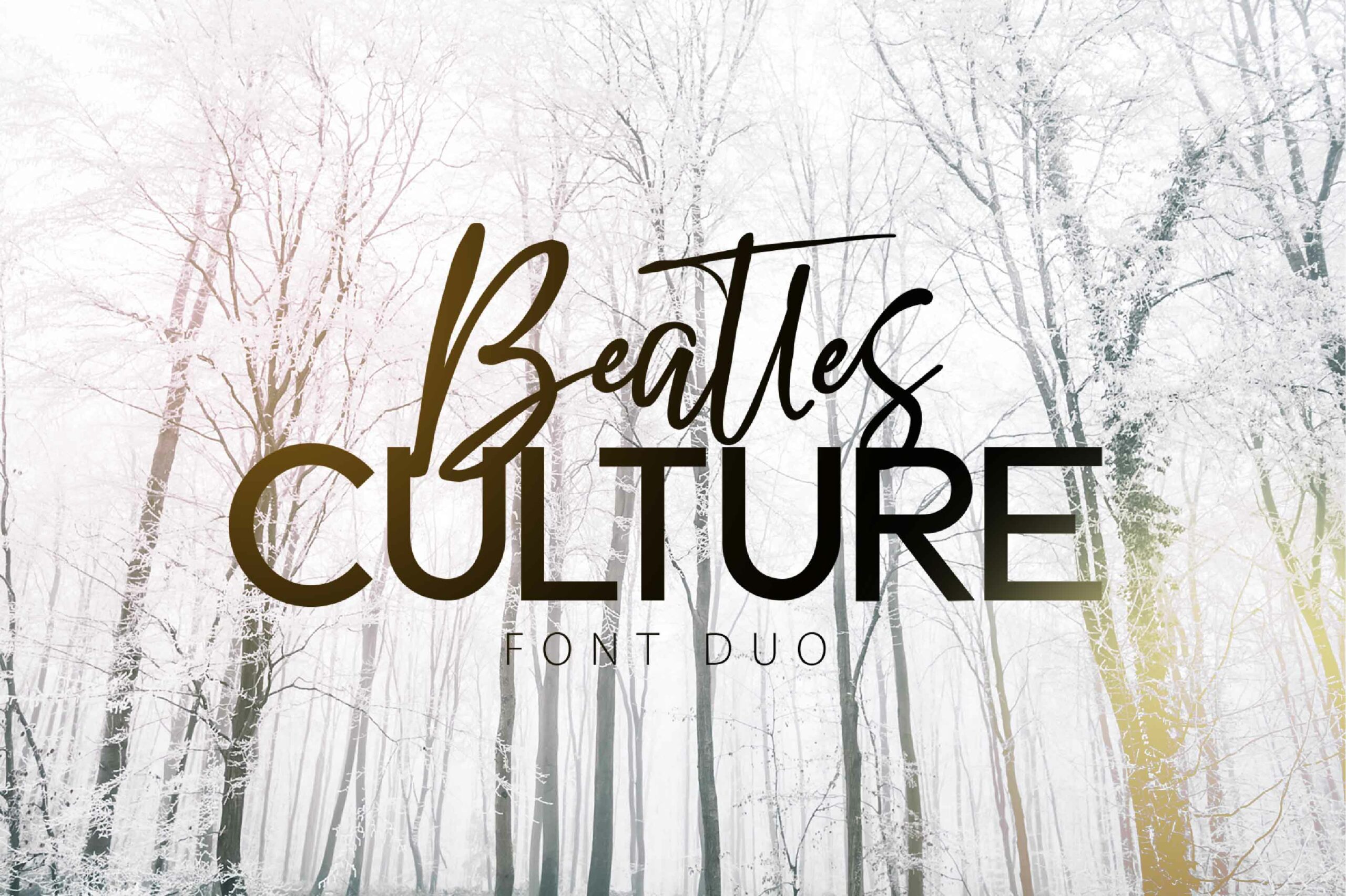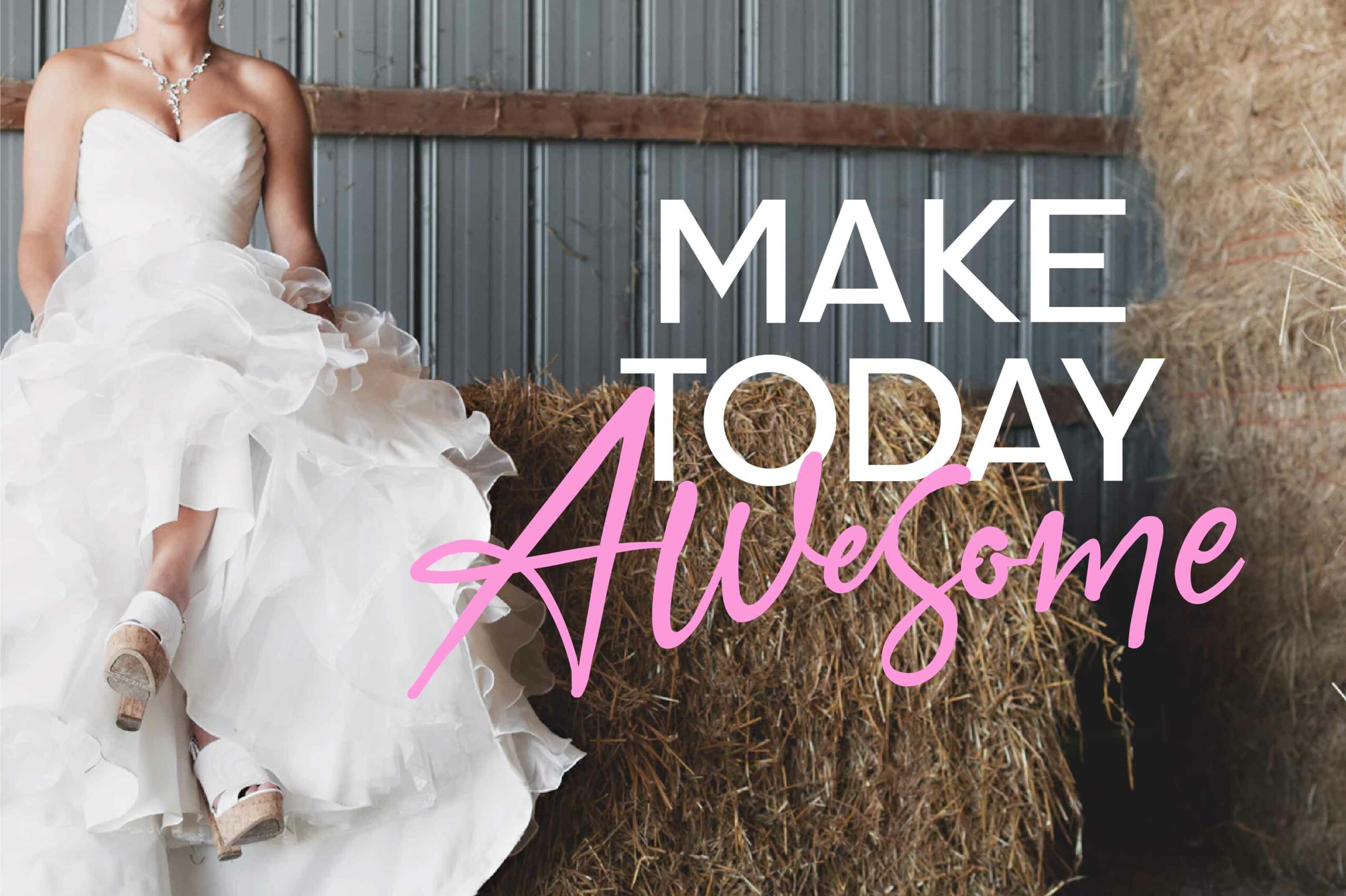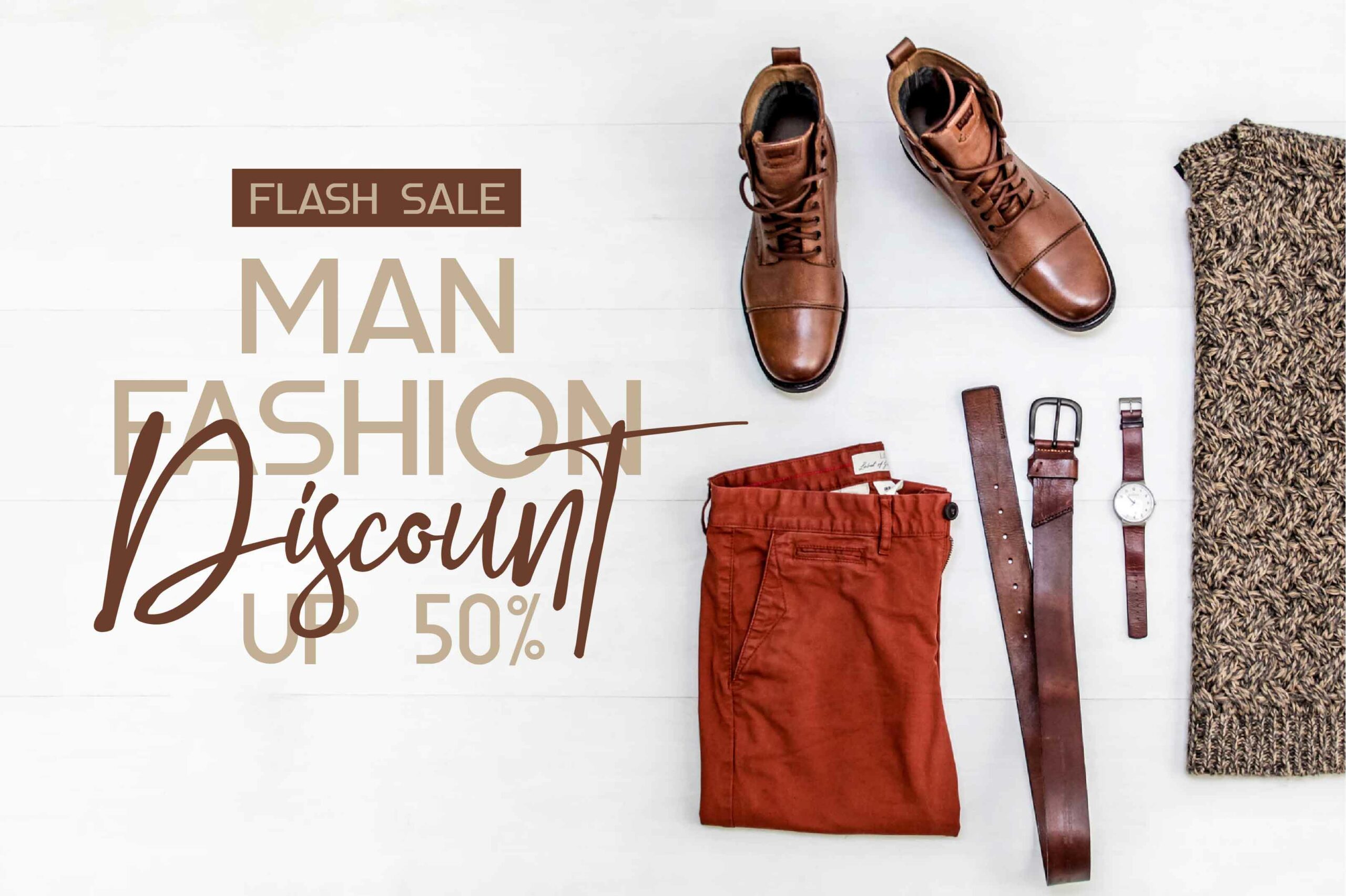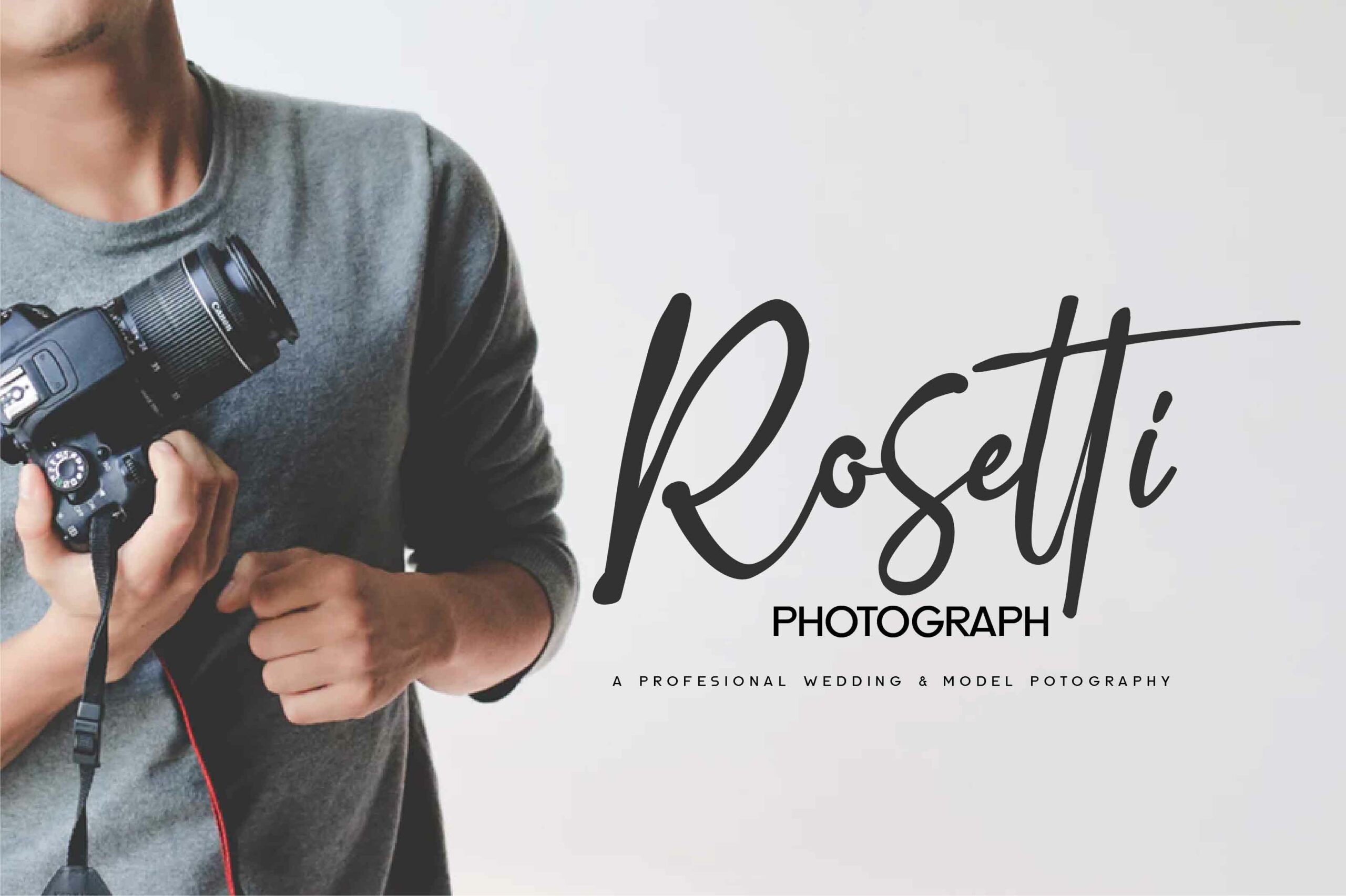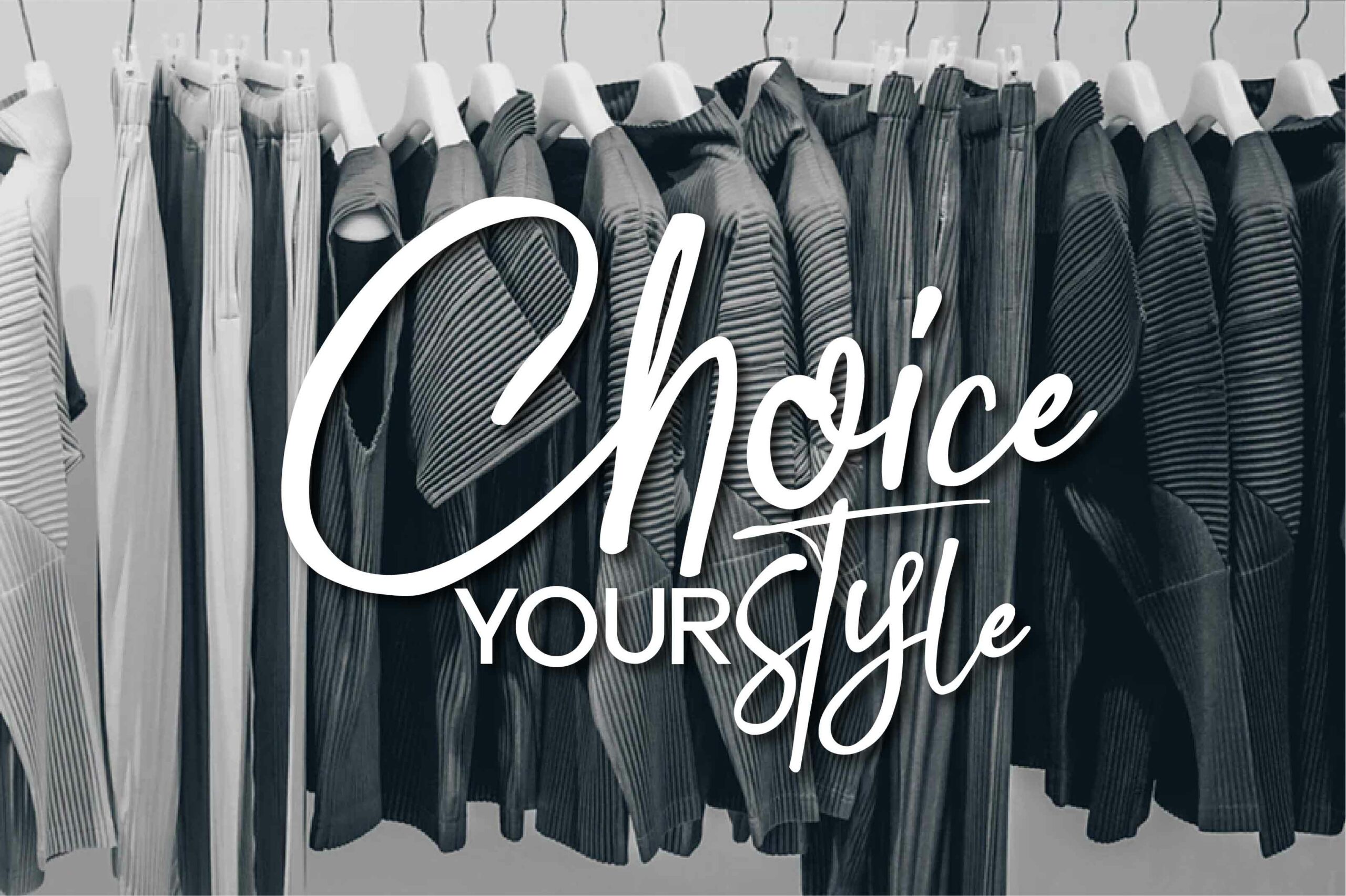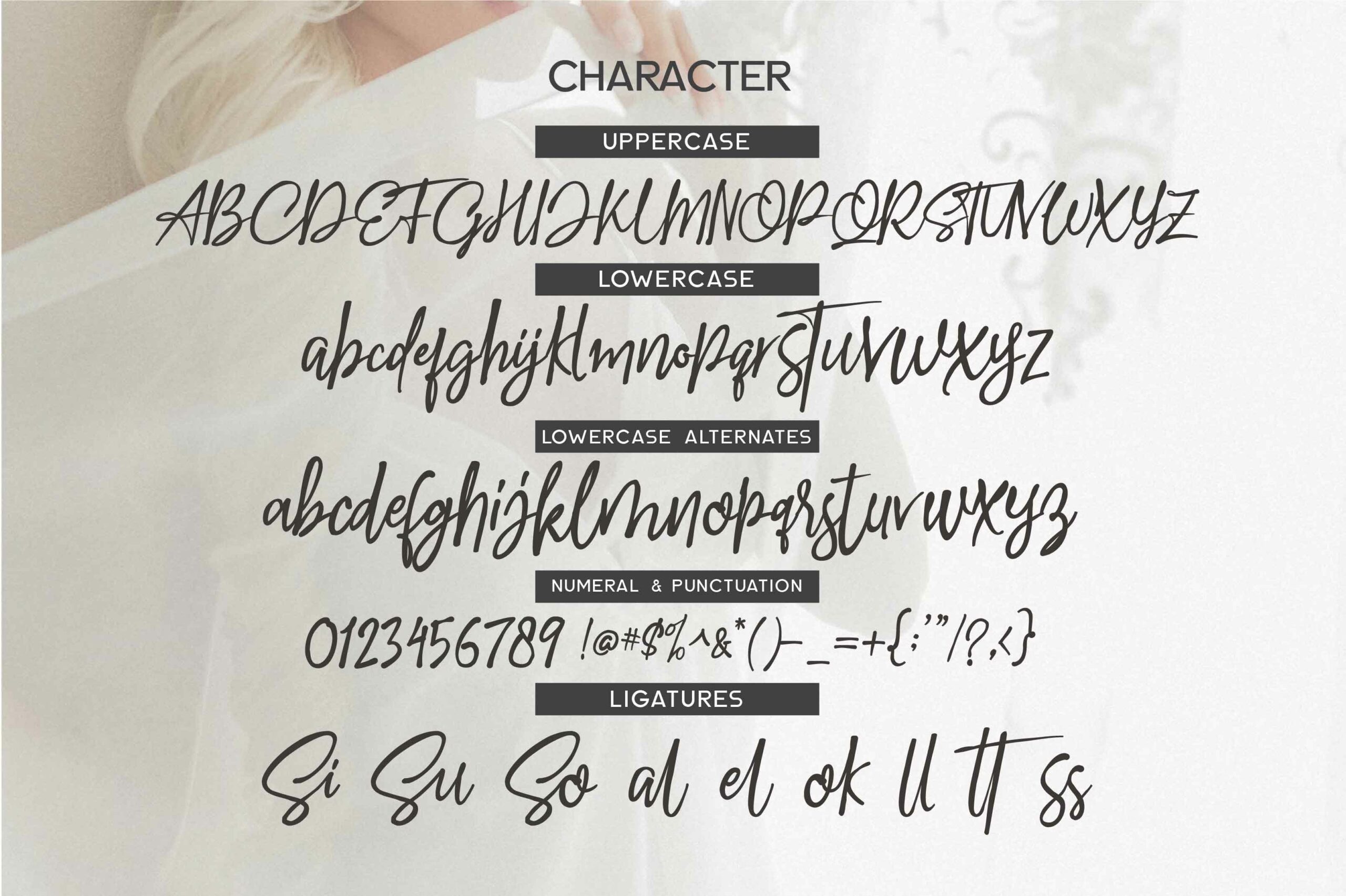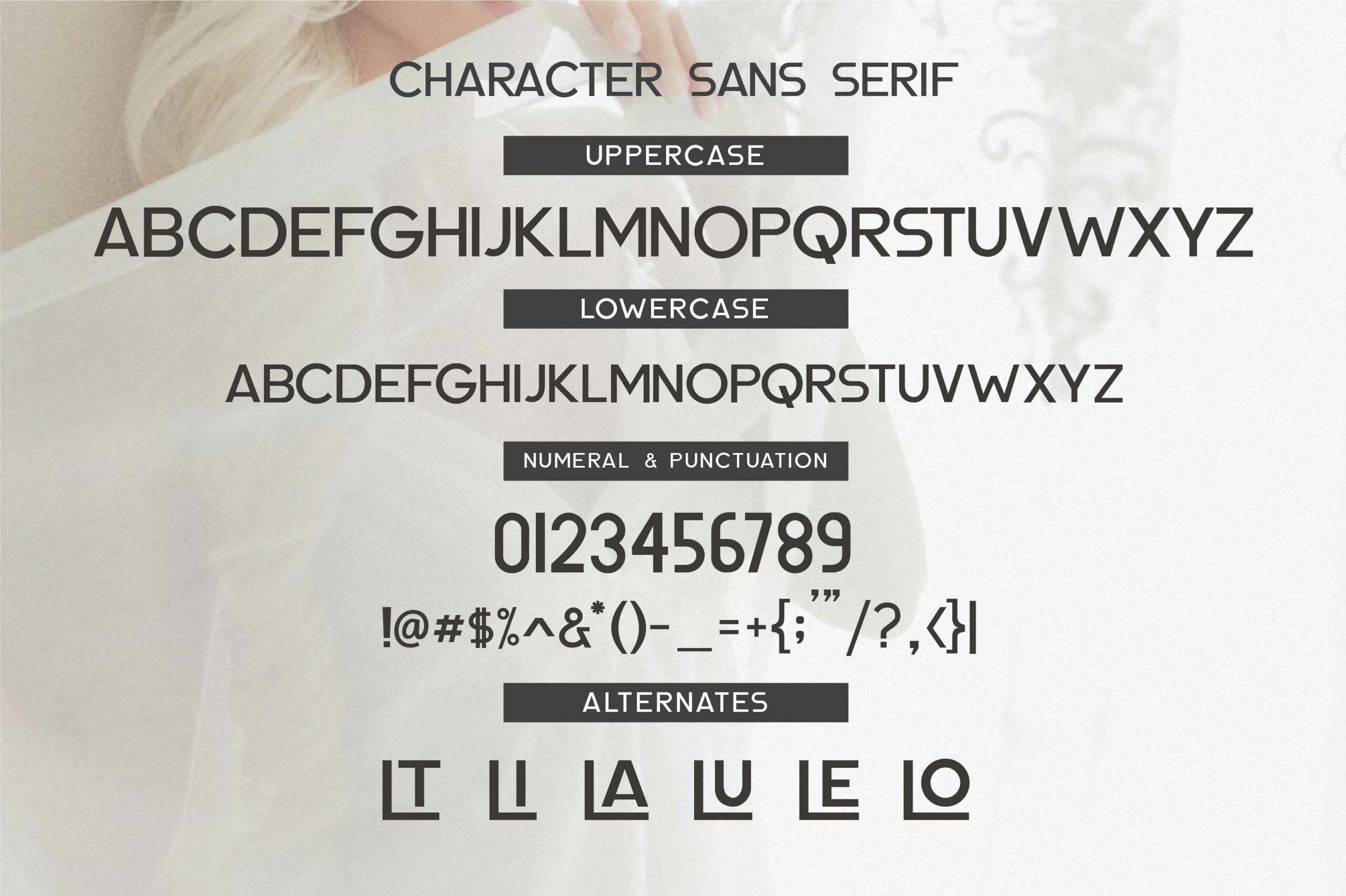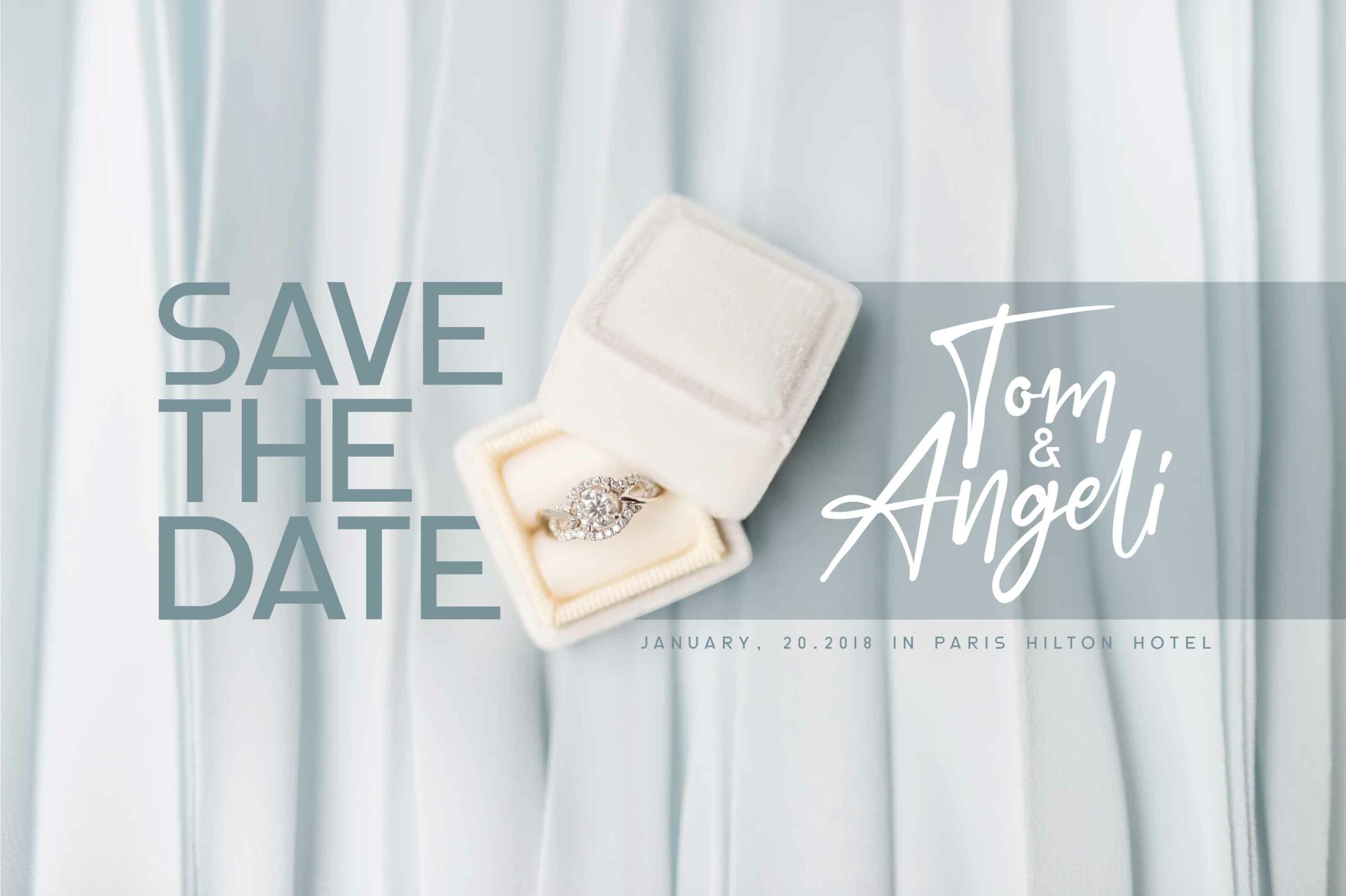
Beatles Culture Font
About Beatles Culture Font
Beatles Culture is a stunning font duo, comprised of a script font and a sans serif. Together these two create a wonderful dynamism in your designs, or can be used separately for a more minimal approach to your type based projects.